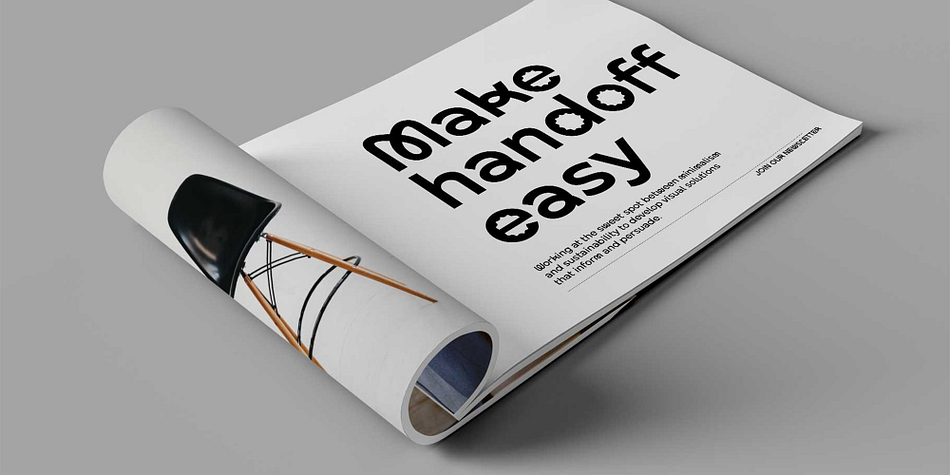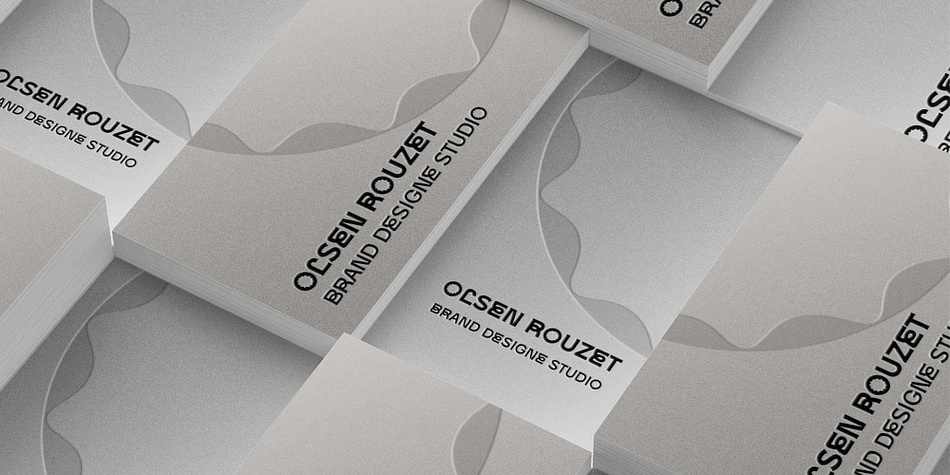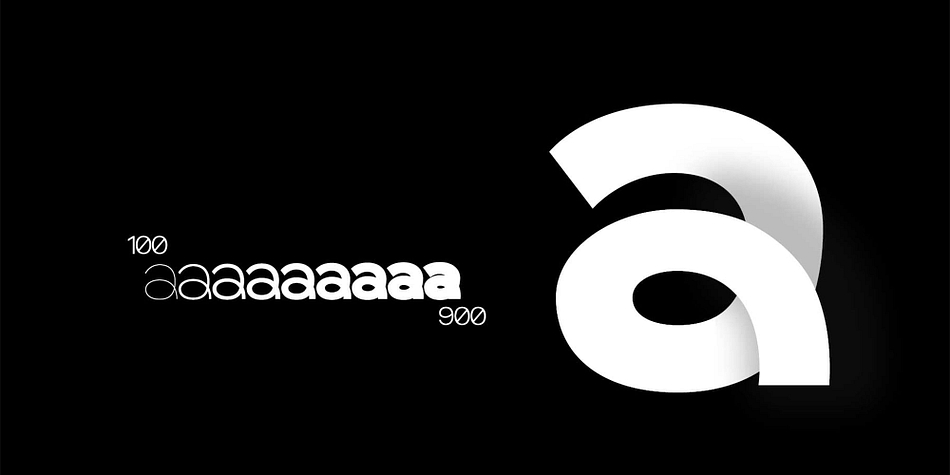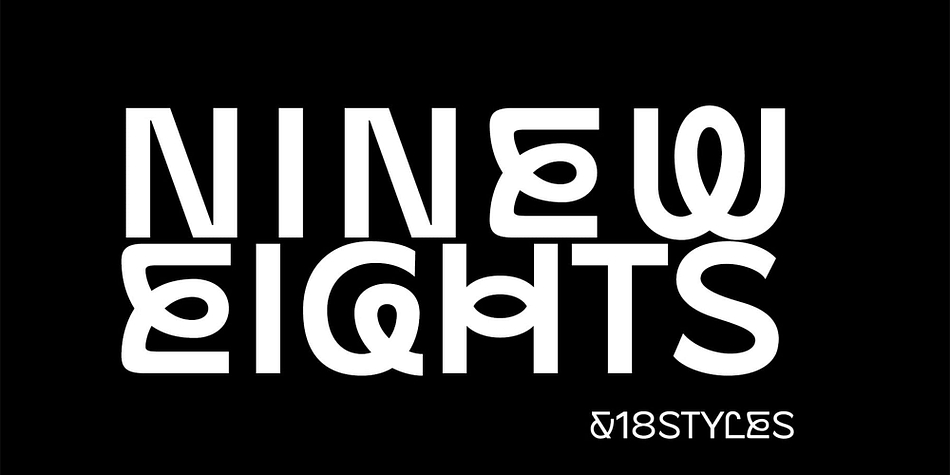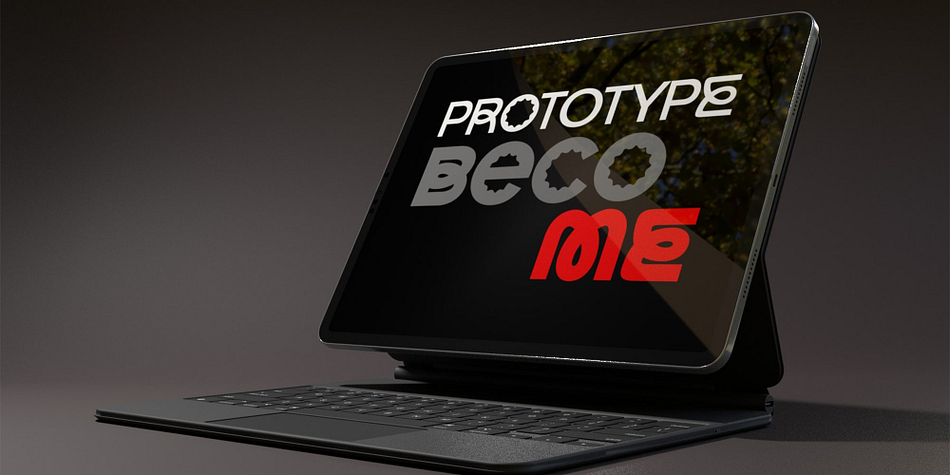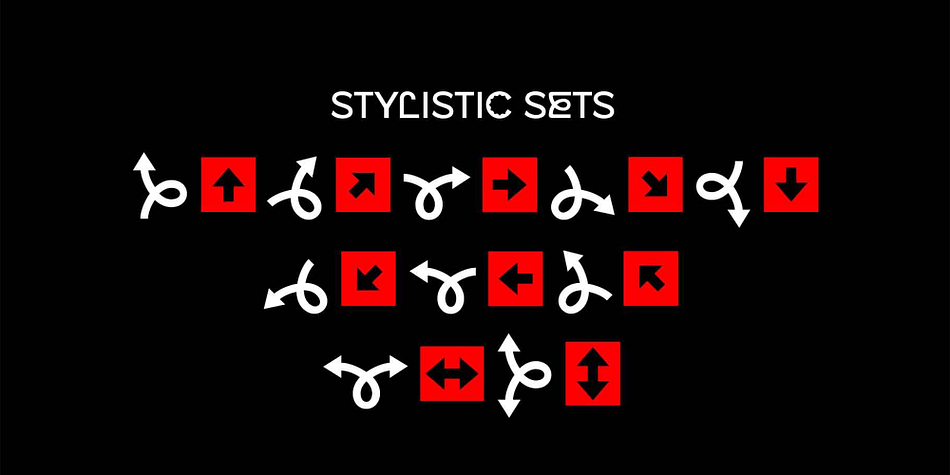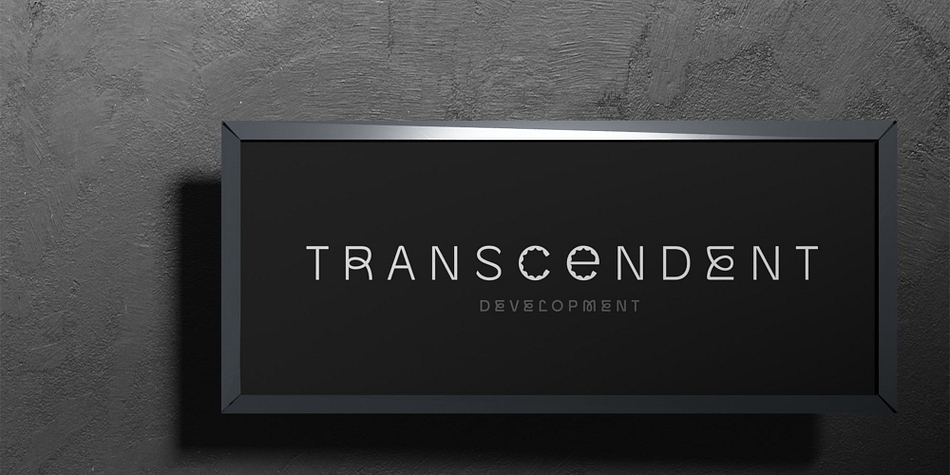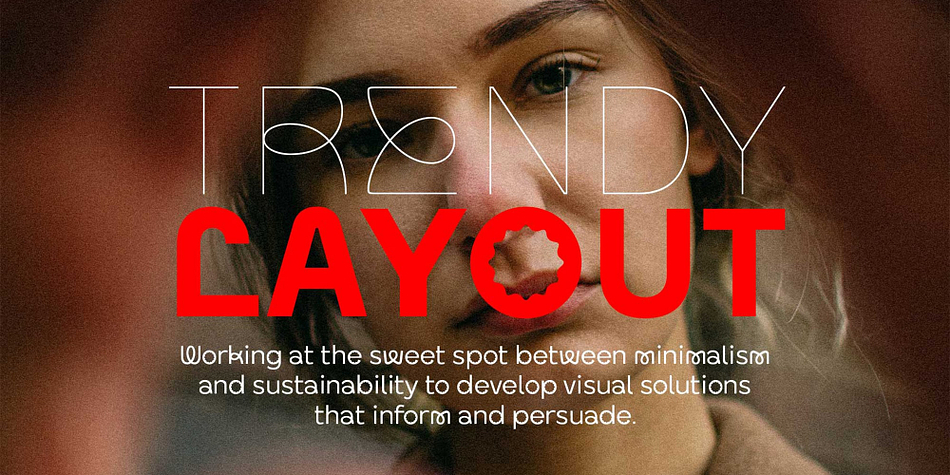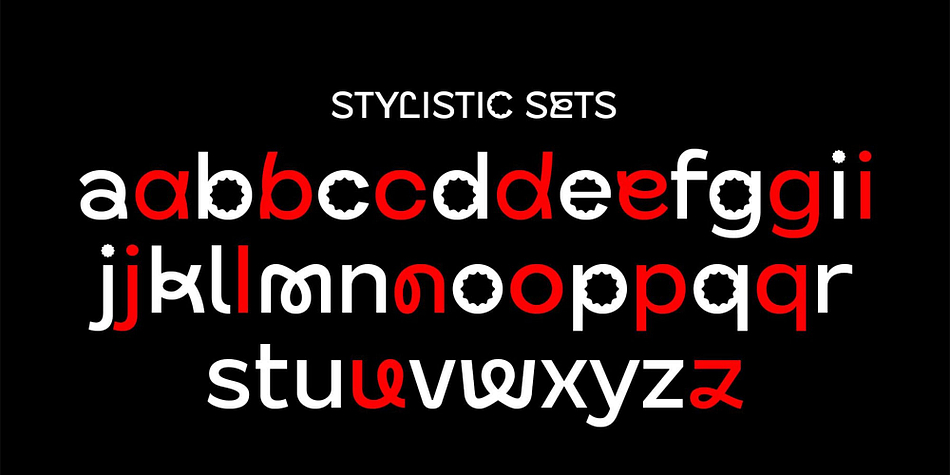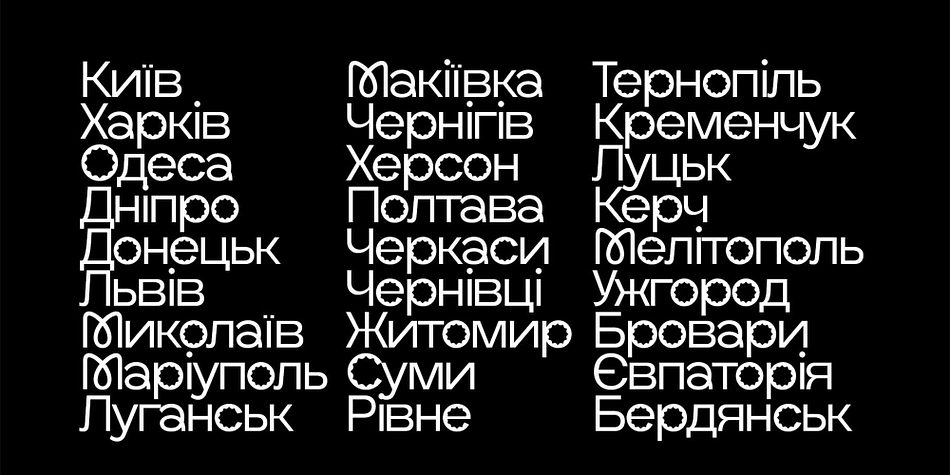
BECOME Display
BECOME Display is a display sans font family. This typeface has eighteen styles and was published by Brenners Template.
Become Display Font Family is the latest trending typography solution for logo design and brand identity. Somewhat playful and decorative elements are added to the glyphs, which allow for a variety of spatial presentations by mixing carefully designed alternates.
Become Display Font Family tries to display playful ideas in well-balanced styles. Hello, designers. We always seek new innovations, but run into the world of forms and frames, presently.
This font family presupposes pleasant imagination and provocation, but controls the change of various styles so as not to lose a sense of balance. B, E, M and W glyphs started from the same skeleton, but the detailed correction work for interpolation transformation was all applied differently.
It is designed to be well suited to any layout while providing a unique stimulus. It can be a great display for all ages, from kids to seniors, and covers publishing, web, app and graphic design areas.
OpenType Features
- Stylistic Sets (ss01,ss02)
- ss01 : C,E,G,H,L,N,O,Q,U,Z(Uppercases), a,b,c,d,e,g,i,j,l,,n,o,p,q,u,z(lowercases)
- ss02 : ↑↗→↘↓↙←↖↔↕
- ligatures : fi,fl
- oldstyle figures
- tabular figures